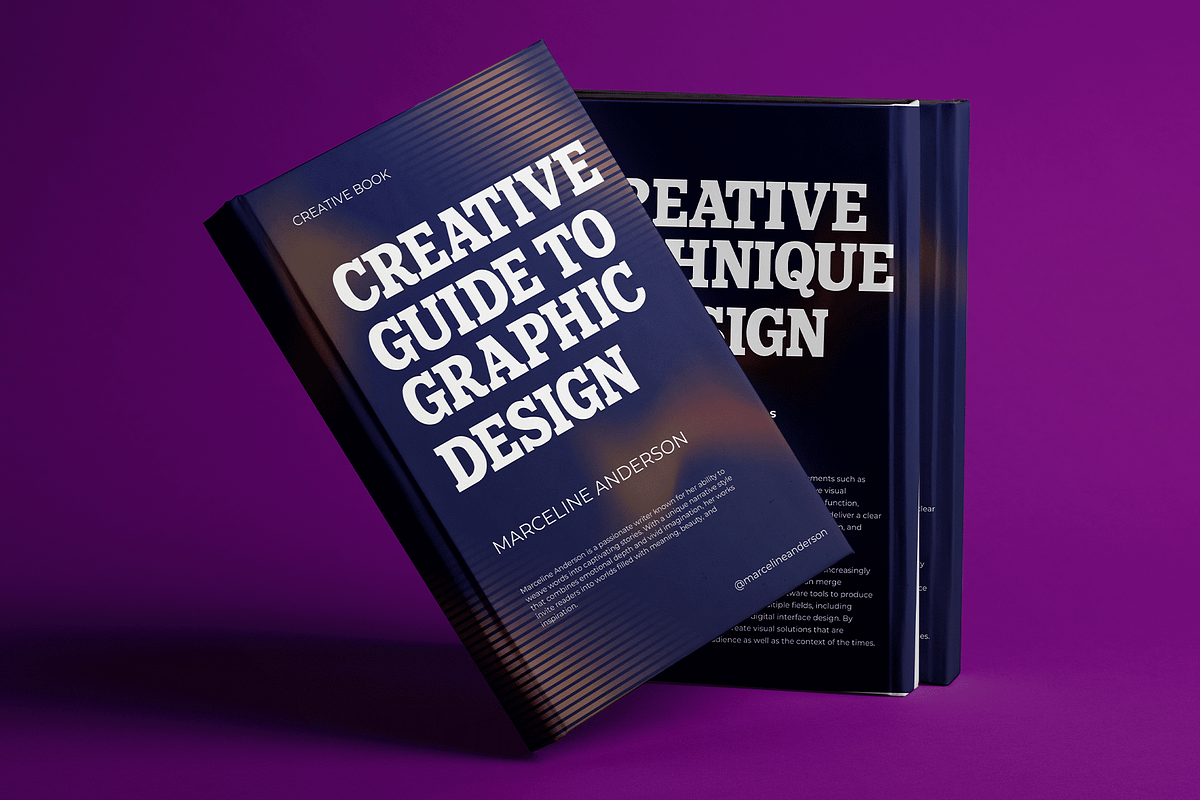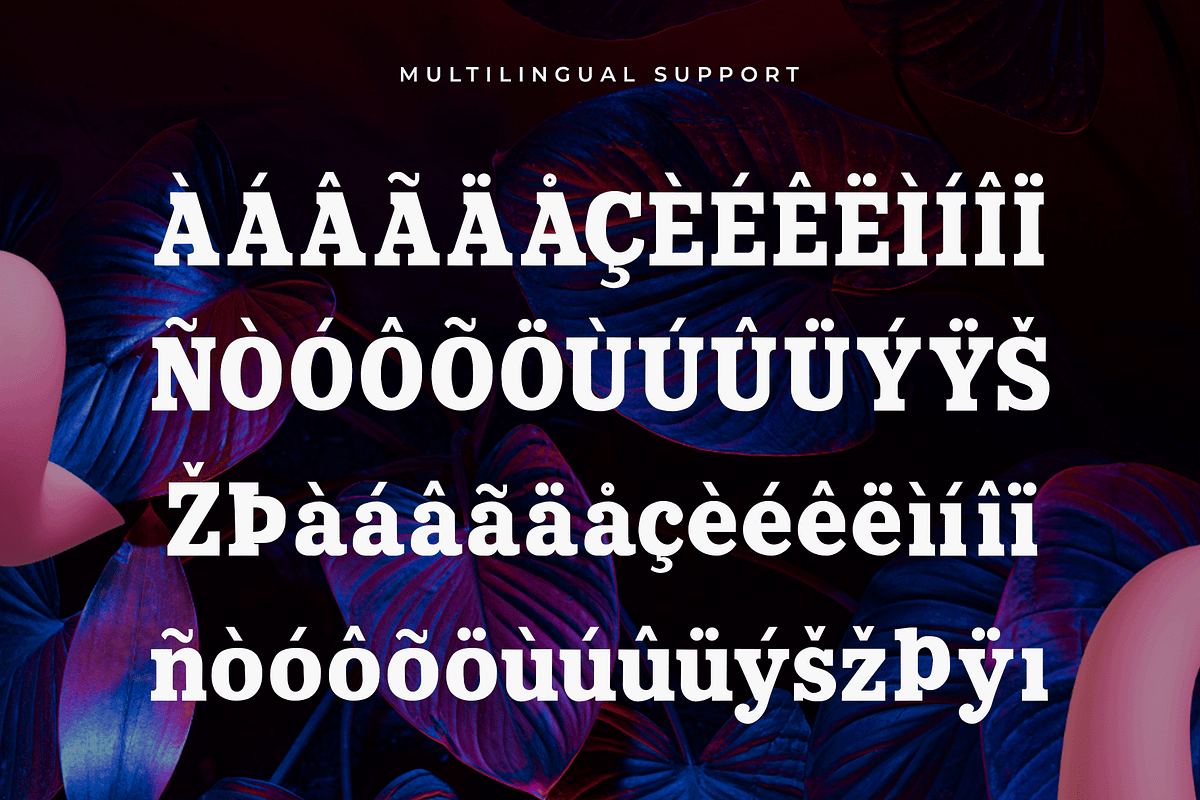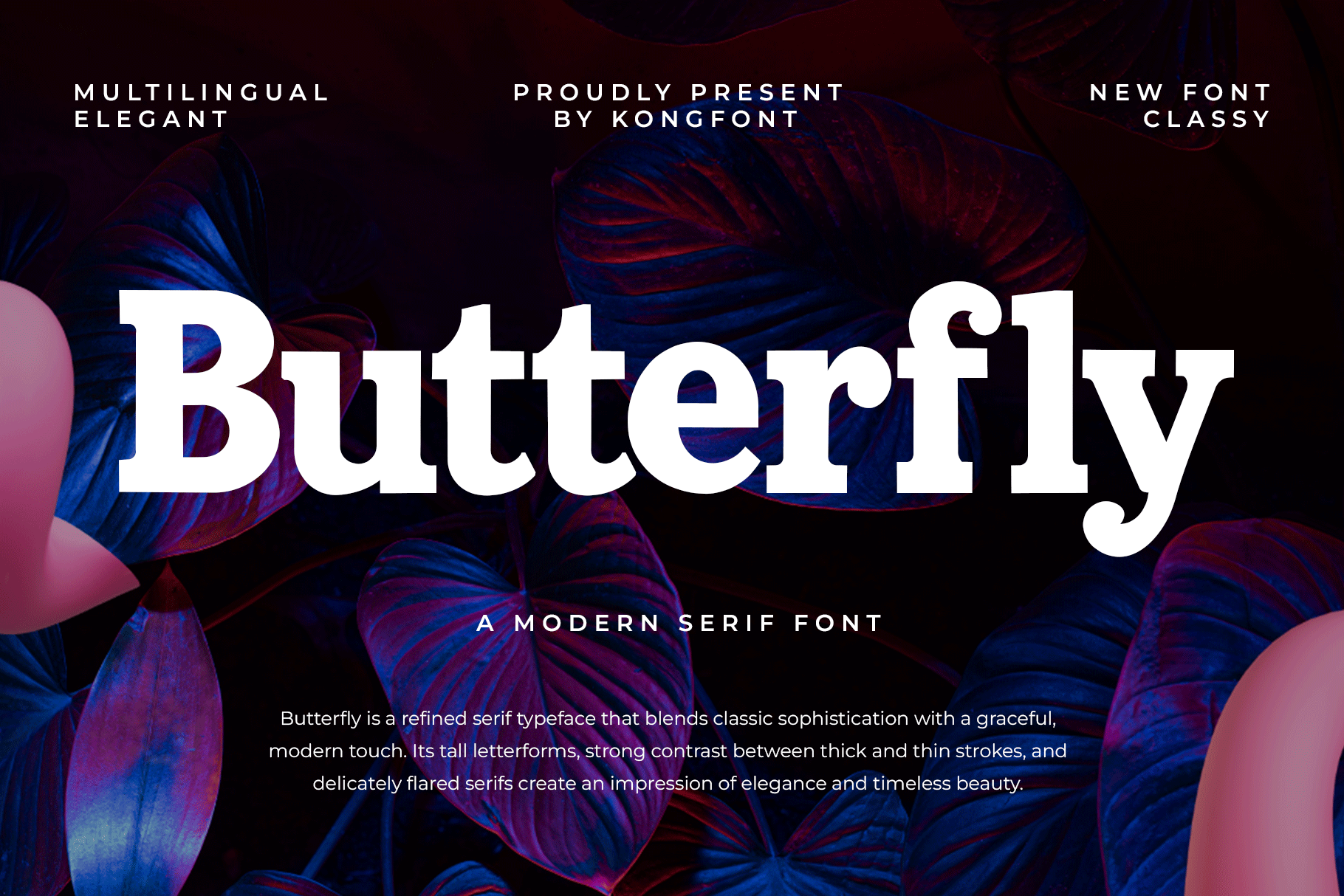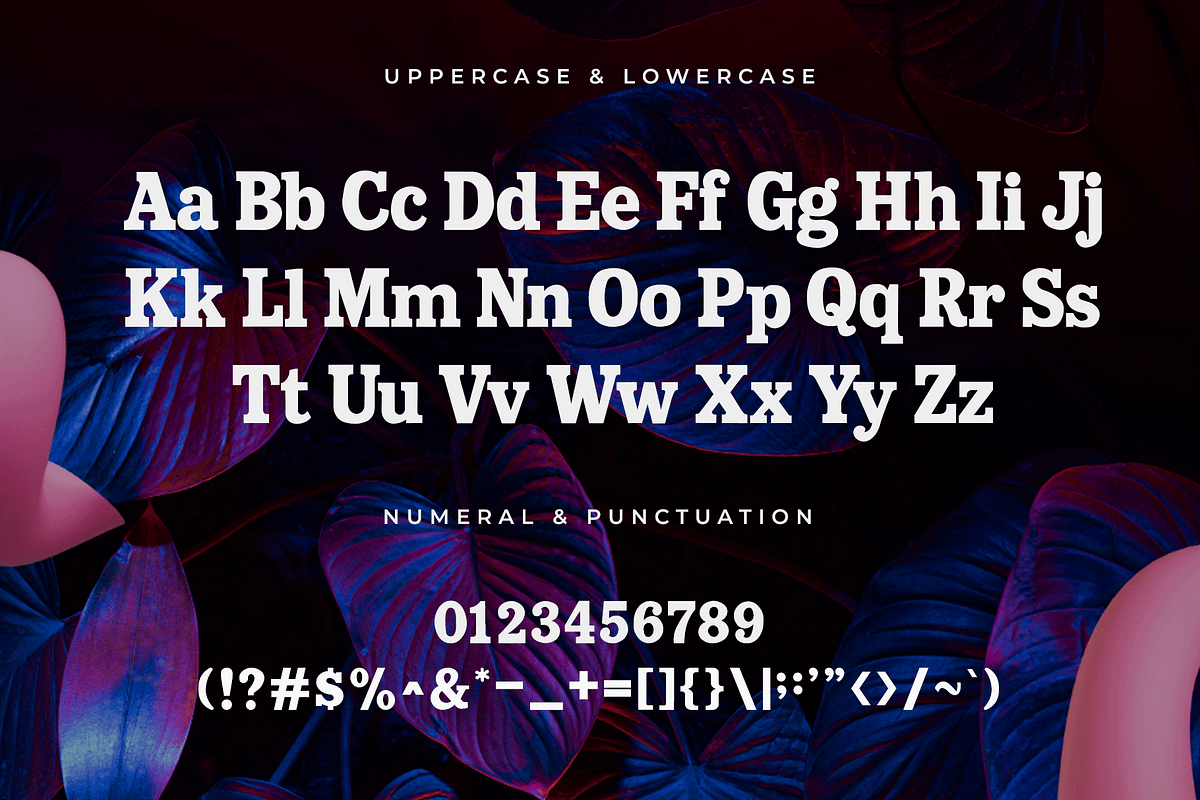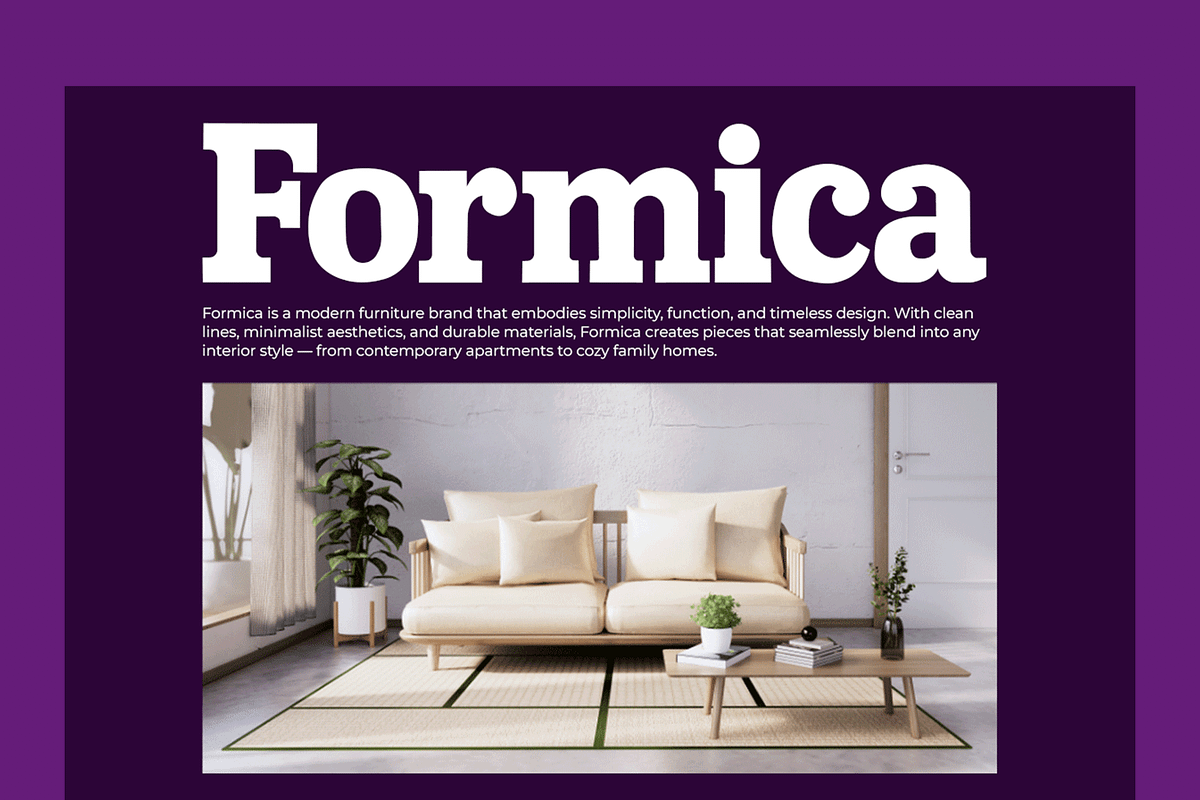
Butterfly – Modern Serif Font
Introducing Butterfly, a modern serif font designed to embody elegance, sophistication, and timeless beauty. With its refined serifs and clean proportions, Butterfly seamlessly balances classic typography traditions with a fresh contemporary aesthetic.
Ideal for branding, editorials, logos, packaging, and advertising, Butterfly brings a sense of grace and professionalism to every project. Its versatile letterforms ensure exceptional readability, making it suitable for both display headlines and longer text compositions.
The font includes uppercase, lowercase, numerals, punctuation, and multilingual support, providing everything you need to create stunning and polished designs. Whether you’re crafting a luxury brand, designing a wedding invitation, or building a sleek magazine layout, Butterfly delivers the elegance and clarity your work deserves.